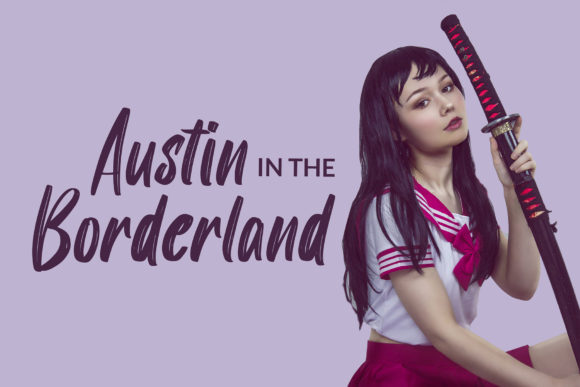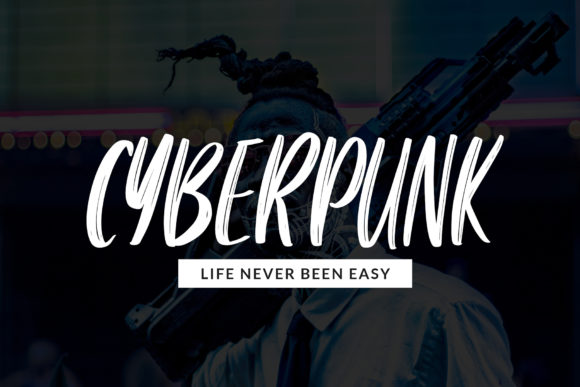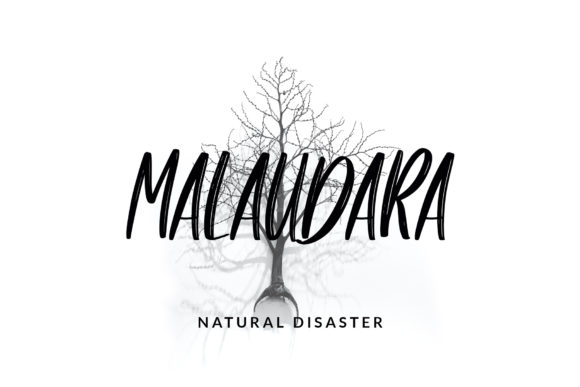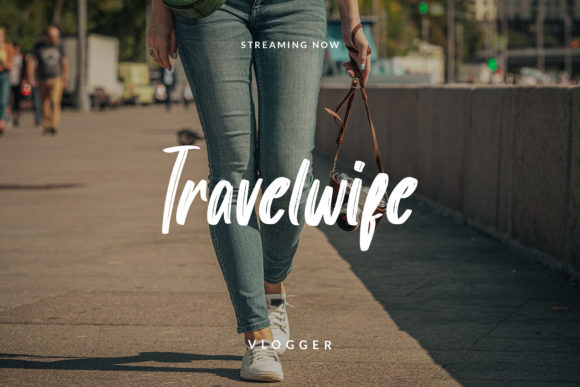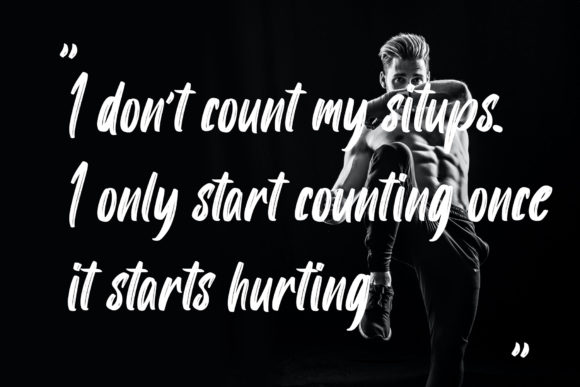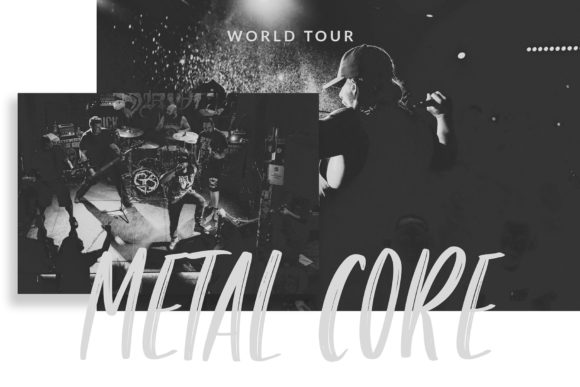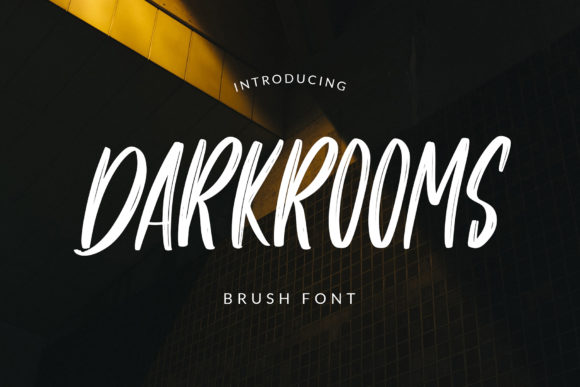
Introducing Darkrooms Font: The Ultimate Urban Styled Display Font
Are you a designer or crafter looking for a unique and eye-catching font to elevate your creative projects? Look no further than Darkrooms Font, a neat, urban styled, and daring brushed display font that’s perfect for making a statement. With its original look and versatile design, Darkrooms Font is ideal for a wide range of crafty ideas, from letterheads and titles to stationery and more.
What is Darkrooms Font?
Darkrooms Font is a carefully crafted display font that boasts a distinctive, urban aesthetic. Its brushed texture and bold lines give it a rugged, edgy feel that’s sure to grab attention. Whether you’re designing a logo, creating a title sequence, or simply looking for a stylish font for your stationery, Darkrooms Font is the perfect choice.
Key Features of Darkrooms Font
• Urban Styled: Darkrooms Font features a bold, urban design that’s perfect for designers and crafters who want to add an edgy touch to their projects.
• Brushed Texture: The font’s brushed texture gives it a unique, hand-crafted feel that’s perfect for creating authentic, high-quality designs.
• Display Font: Darkrooms Font is designed specifically as a display font, making it ideal for use in titles, headings, and other prominent design elements.
• Versatile: With its bold design and urban aesthetic, Darkrooms Font can be used in a wide range of creative projects, from letterheads and stationery to logos and more.
What Can You Use Darkrooms Font For?
Darkrooms Font is an incredibly versatile font that can be used in a wide range of creative projects. Here are just a few ideas to get you started:
• Letterheads: Add a touch of urban style to your letterheads with Darkrooms Font.
• Titles and Headings: Use Darkrooms Font to create bold, eye-catching titles and headings for your designs.
• Stationery: Elevate your stationery designs with the unique, brushed texture of Darkrooms Font.
• Logos: Create a bold, memorable logo with Darkrooms Font.
• Signage: Use Darkrooms Font to create eye-catching signs and displays.
Why Choose Darkrooms Font?
With so many fonts to choose from, why should you choose Darkrooms Font? Here are just a few reasons why Darkrooms Font stands out:
• Unique Design: Darkrooms Font features a unique, urban design that’s sure to grab attention.
• High-Quality: The font is carefully crafted to ensure high-quality results, even at large sizes.
• Versatile: The font can be used in a wide range of creative projects, making it a great addition to any design library.
If you’re looking for a unique, urban styled display font that’s perfect for making a statement, look no further than Darkrooms Font. With its bold design, brushed texture, and versatile nature, Darkrooms Font is the perfect choice for designers and crafters who want to elevate their creative projects. Whether you’re designing a logo, creating a title sequence, or simply looking for a stylish font for your stationery, Darkrooms Font is the ultimate urban styled display font.
• Experiment with Different Sizes: Darkrooms Font looks great at a range of sizes, so don’t be afraid to experiment and find the perfect size for your design.
• Pair with Other Fonts: Darkrooms Font pairs well with a range of other fonts, so try combining it with different fonts to create a unique look.
• Use in Combination with Images: The bold design of Darkrooms Font makes it perfect for use in combination with images, so try using it to add text to your photos and illustrations.